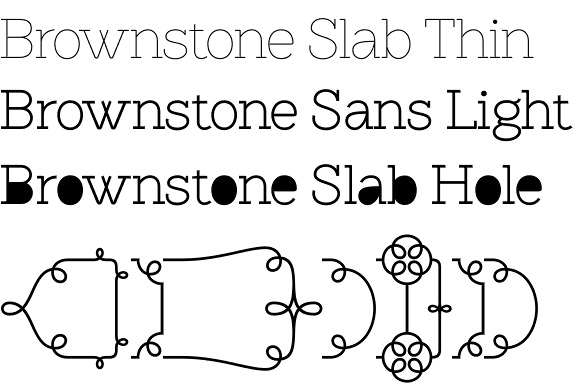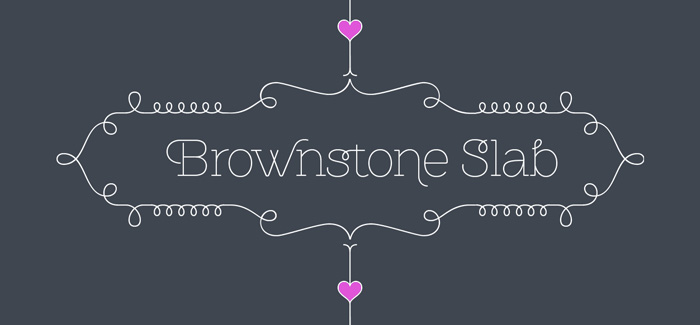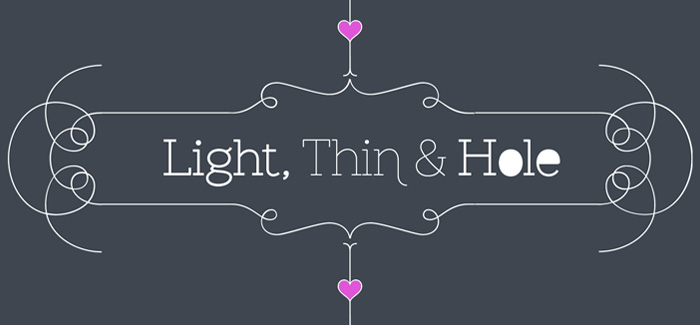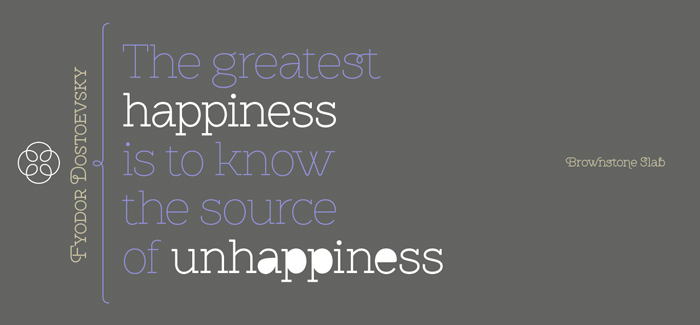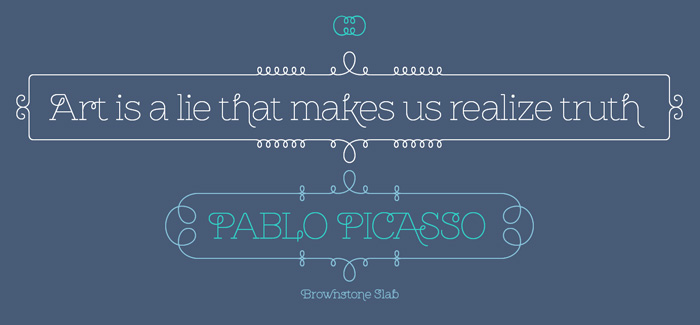
Brownstone Slab font
Designed in 2013 by Ale Paul/Sudtipos, Brownstone Slab font is an evolutional slab serif and decorative version of the original award-winning Brownstone Sans. Inheriting the clean outlines of its predecessor Brownstone Slab is a contemporary response to the Victorian motifs of ironwork and carved decorations traditional for New York City row houses. Brownstone Slab looks a little more solid than the original Brownstone Sans yet very elegant and eye-catching. It is developed in three weights supporting an impressive set of alternates, swashes and beautifully designed “Ale”-style ligatures. Moreover – you’ll be surprised to find 3 separate fonts with stylish frames and ornaments – one for each of Brownstone Slab’s weights. If you like using an abundance of open type features, then this is it – the Brownstone Slab font family by Ale Paul.
Designers: Alejandro Paul
Publisher: Sudtipos